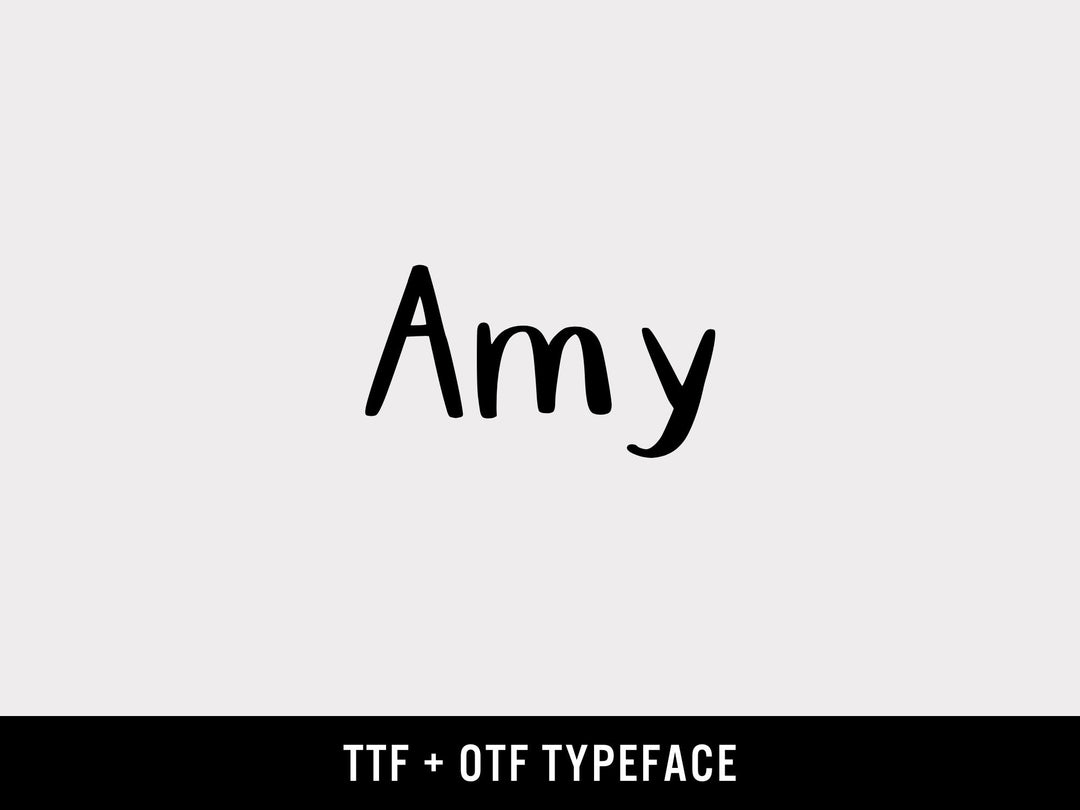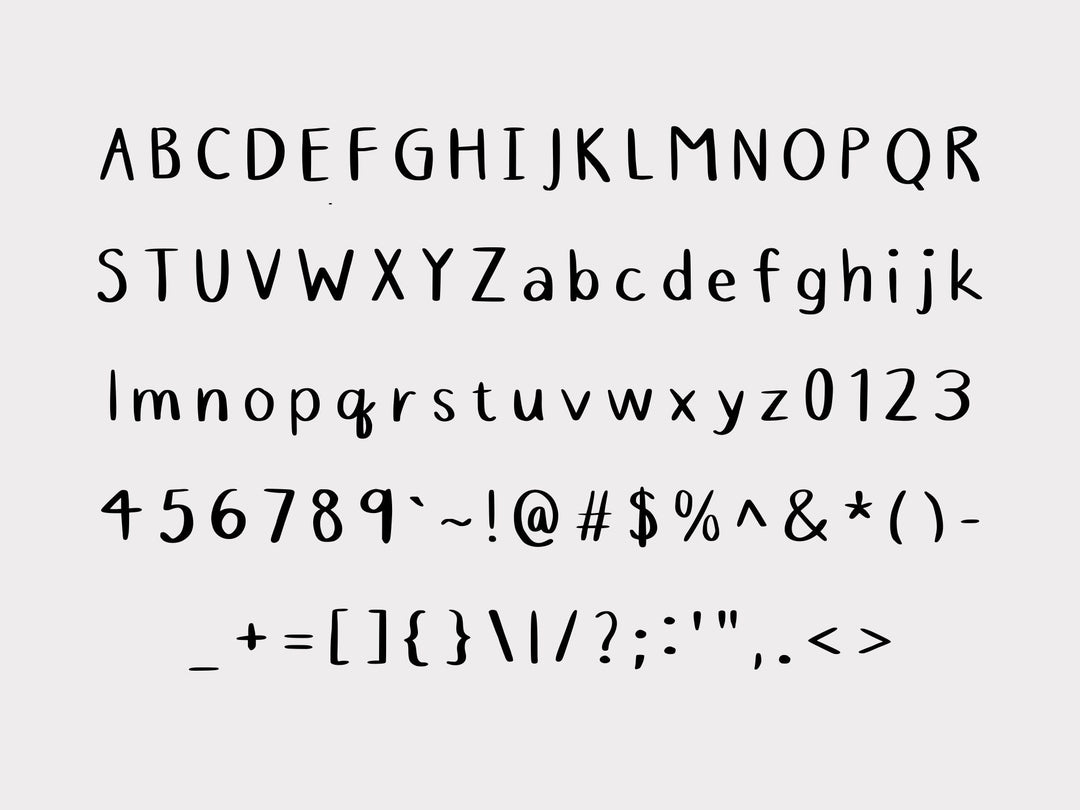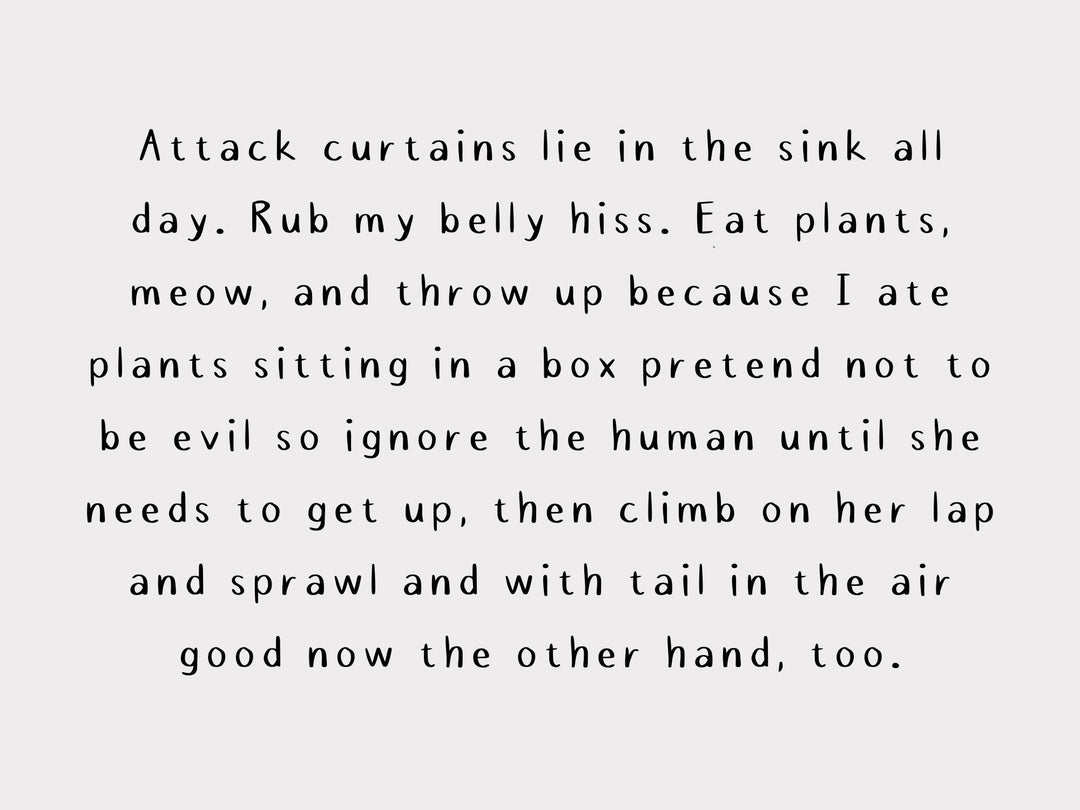
Amy is a clean, friendly humanist sans-serif designed specifically for digital note-taking and planning.
If your handwriting never quite looks the way you want it to in GoodNotes or Notability, Amy is the font that fills that gap — natural-looking, easy to read, and warm without being whimsical.
Humanist sans-serif with gentle curves and medium stroke contrast. Inspired by calligraphic letterforms — feels hand-drawn without looking sloppy. Consistent and legible at small sizes.